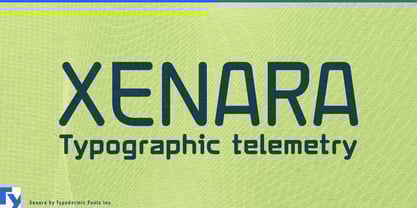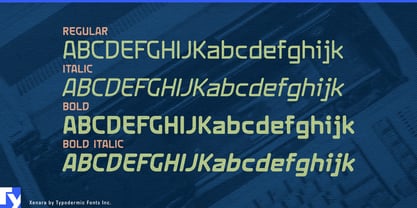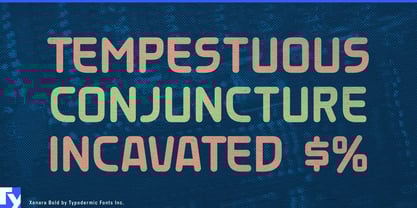
Xenara
von Typodermic
Die Schriftfamilie Xenara wurde von Ray Larabie entworfen und von Typodermic veröffentlicht. Xenara enthält 4 Stile und Familienpaketoptionen.
Xenara is a geometric sans typeface that combines engineered precision with approachable warmth. Its compact proportions and rounded terminals create a voice that feels technical yet friendly, equally at home in professional documents or creative branding.
Available in regular, bold, and italics, Xenara is built for versatility across industries. In branding, it gives tech companies, research organizations, and eco-conscious startups a clean, modern identity. In editorial design, it adds clarity to science and design magazines, non-fiction books, and data-heavy spreads. For advertising and packaging, it adapts seamlessly—from the confident professionalism of consumer electronics to the approachable energy of wellness and lifestyle products.
Xenara also offers a distinctive creative edge through its alternates. Designers can switch to a barless “A,” a trident “M,” a zigzag “E,” or a square “S” to inject individuality into headlines, logotypes, or campaigns. Combined with its reliable readability in dashboards, fintech apps, and data visualization, Xenara moves easily between serious utility and expressive experimentation.
It’s a typeface that doesn’t force you to choose between form and function. Xenara gives you both: clarity when you need it, character when you want it.
Designer: Ray Larabie
Herausgeber: Typodermic
Foundry: Typodermic
Original Foundry: Typodermic
Eigentümer des Designs: Typodermic